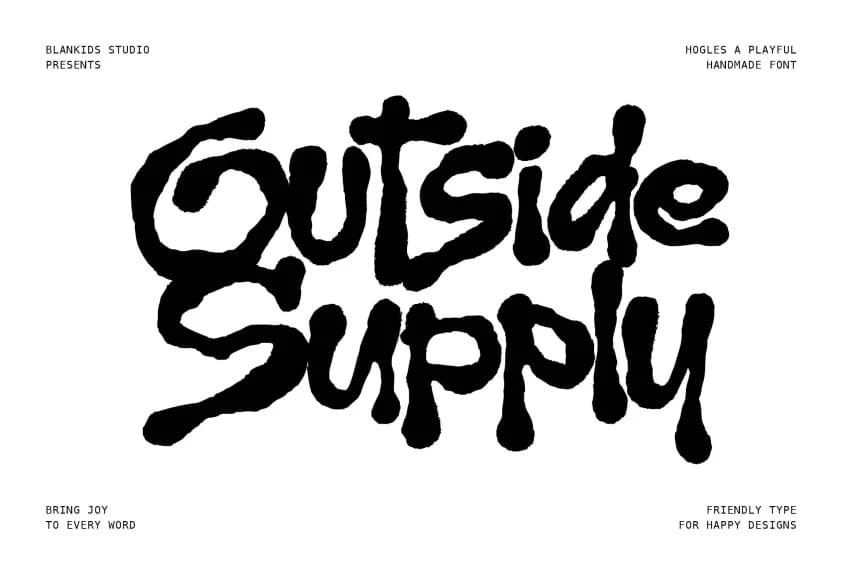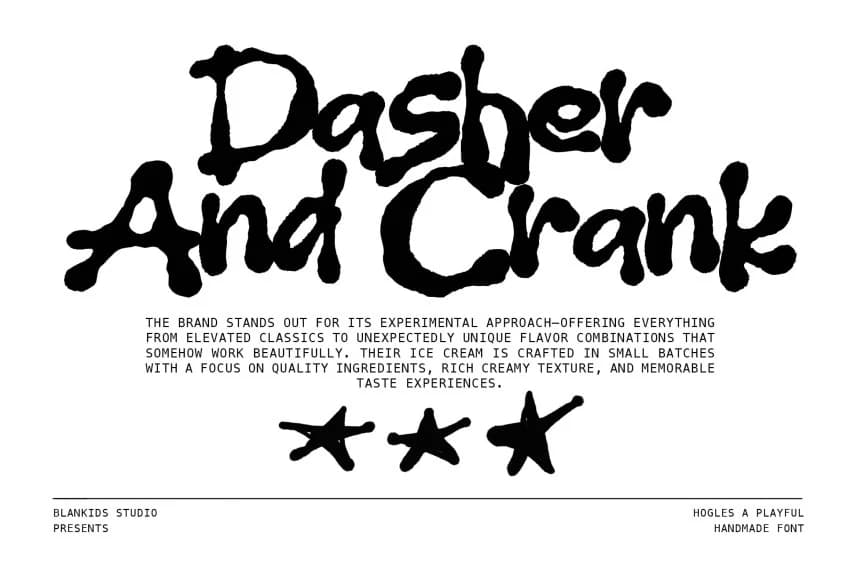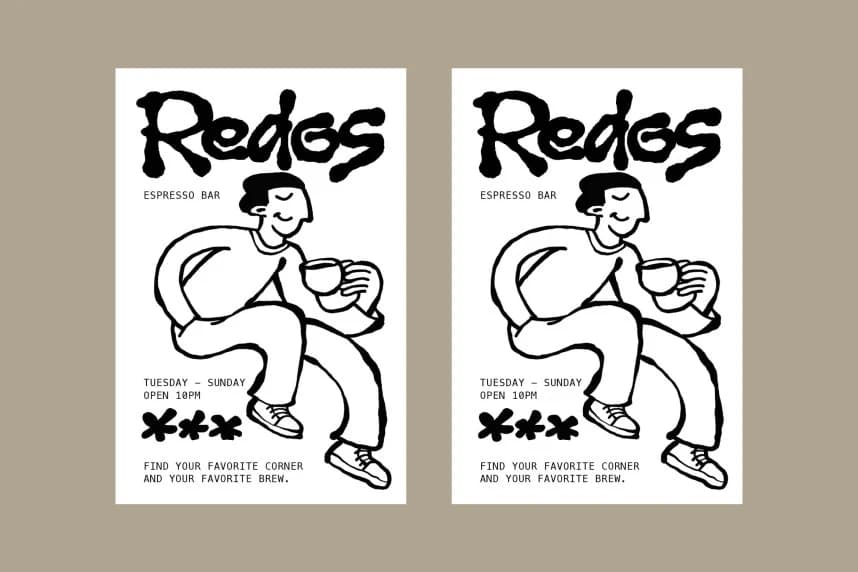
Hogles Display Font
Hogles Display Font is a bold, playful handmade display font designed to bring joy and personality to every word. With its organic strokes, imperfect shapes, and expressive character, Hogles delivers a lively and friendly vibe that instantly grabs attention.